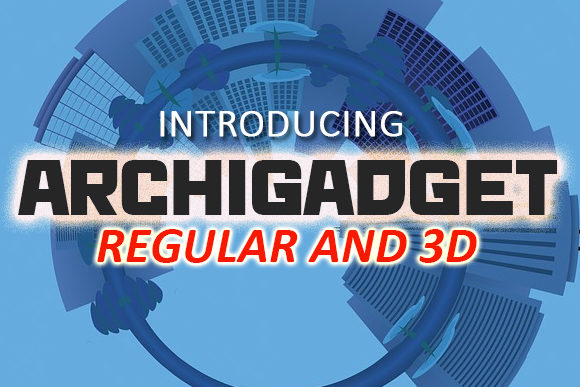
The Designer’s Dream Come True: Archigadget Font
I’ll never forget the time I was working on a project for a client who needed a bold, eye-catching font to make their brand stand out. I spent hours scouring the internet for the perfect one, but nothing seemed quite right. That was until I stumbled upon the Archigadget font. **It was love at first sight!** ✨
As a designer, I’ve learned that the right font can make all the difference in a project. It’s not just about looking good – it’s about conveying the right message and tone. And that’s exactly what Archigadget does. This bold and sharp-looking display font has become a staple in my design toolkit, and I’m excited to share it with you.
An Honest Review: What I Love (and What I Don’t)
- ✅ **Versatility**: Archigadget is incredibly versatile, making it perfect for a wide range of projects, from logos and branding to posters and social media graphics.
- ✨ **Unique Style**: The font’s bold and sharp lines give it a unique style that’s sure to grab attention.
- ✅ **Easy to Read**: Despite its boldness, Archigadget is surprisingly easy to read, even in smaller sizes.
The Not-So-Good Stuff
While Archigadget is an amazing font, it’s not perfect. Here are a few quirks to keep in mind:
- ⚠️ **Limited Use in Body Text**: Archigadget is best used as a display font, and can be a bit too bold for body text.
- 🤔 **Some Kerning Issues**: I’ve noticed that the kerning can be a bit off in certain situations, but this can usually be fixed with a bit of manual adjustment.
One of the best things about Archigadget is its OpenType features and glyphs. With a range of stylistic alternates and swashes, you can customize your text to fit your brand’s unique style. To access these features, you’ll need to use a design platform that supports OpenType, like Adobe Photoshop or Illustrator.
The Story Behind Archigadget
Archigadget was designed with the modern designer in mind. Its creator, a talented typographer, wanted to create a font that was both bold and versatile. With its sharp lines and unique style, Archigadget is perfect for designers who want to make a statement.
Q: What is Archigadget font?
A: Archigadget is a bold and sharp-looking display font designed for modern designers.
Q: What can I use Archigadget for?
A: Archigadget is perfect for a wide range of projects, including logos, branding, posters, and social media graphics.
Q: Is Archigadget easy to read?
A: Despite its boldness, Archigadget is surprisingly easy to read, even in smaller sizes.